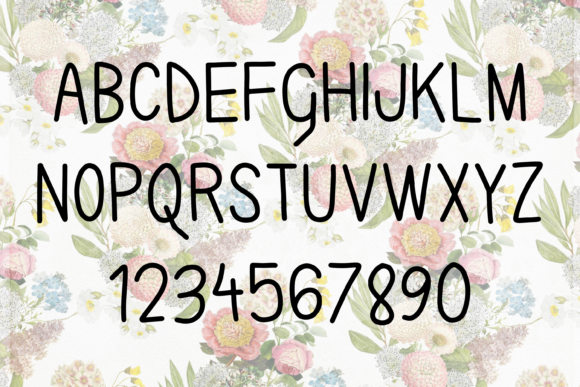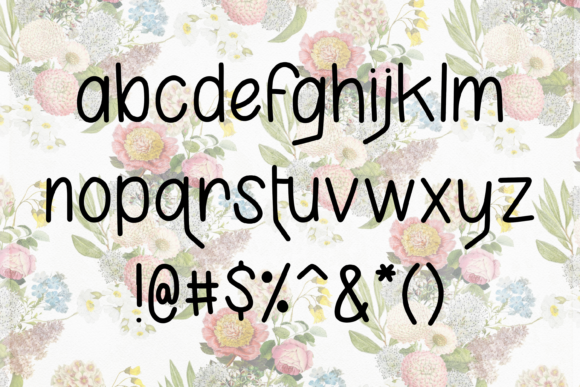
Karla Camila Font
About Karla Camila Font
The Karla Camila is an amazing handwritten font. It has a natural feel and is perfect for adding a personal touch to your designs.